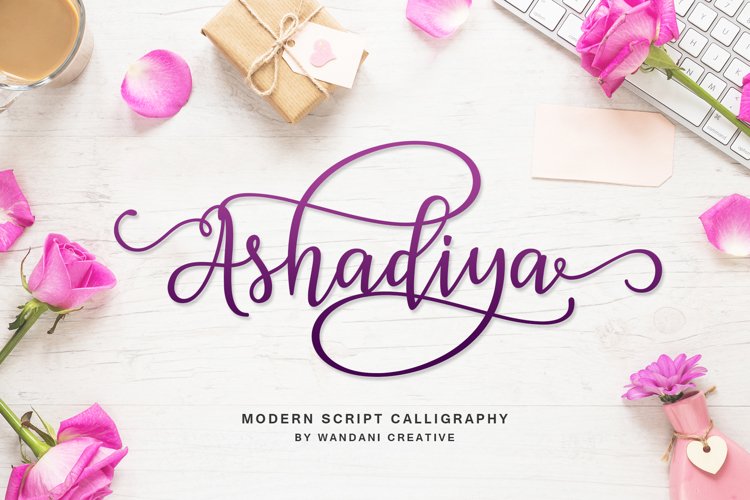
Created By BeauTypes
Ashadiya | Modern Calligraphy Font
Ashadiya is a must have for all your design needs. Perfect for greeting cards, branding, stationery design, social media, packaging, magazine layouts, prints and more!
Ashadiya come with 635 glyphs. The alternative characters were divided into several Open Type features such as Swash, Stylistic Sets, Stylistic Alternates, Contextual Alternates. The Open Type features can be accessed by using Open Type programs such as Adobe Illustrator, Adobe InDesign, Adobe Photoshop Corel Draw X version, And Microsoft Word. And this Font has given PUA unicode (specially coded fonts). so that all the alternate characters can easily be accessed in full by a craftsman or designer.
Main Feature:
• Style Collection 01-09
• Number
• Punctuation
• International Languange
• Symbols Support
• PUA Unicode
• and mores